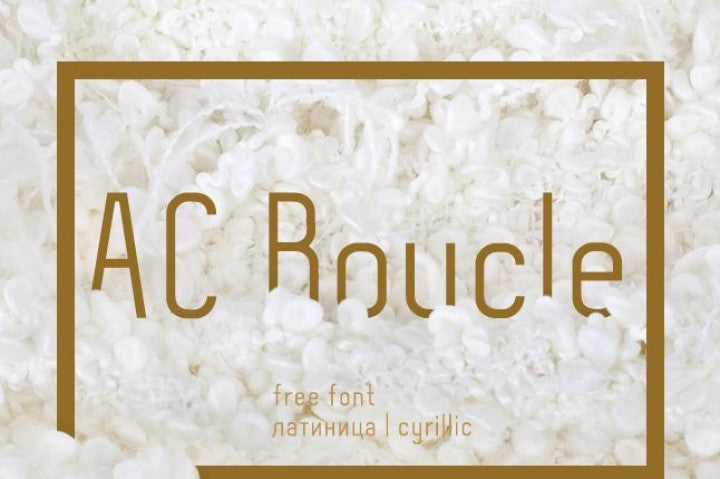
Free AC Boucle font
We're glad to feature this miraculous free ac boucle font. The Hungry JPEG has created this amazing and beautiful typeface. This is absolutely fancy font so you can easily make world-class designs.